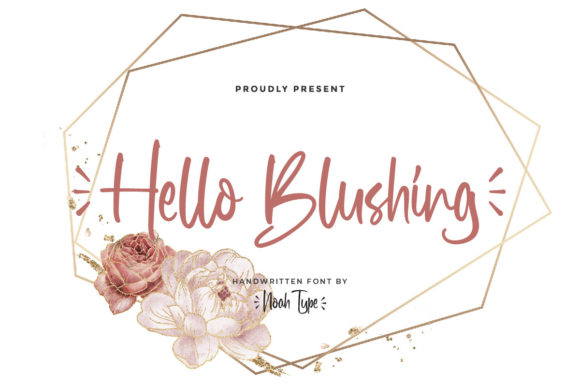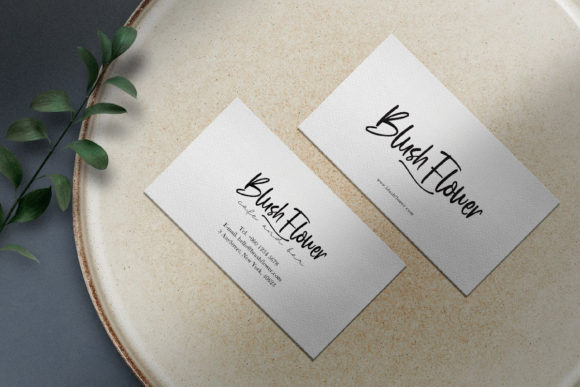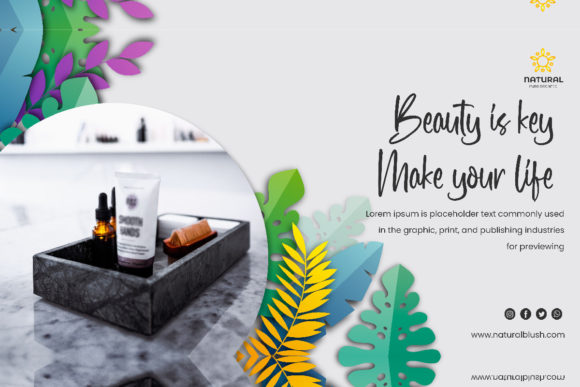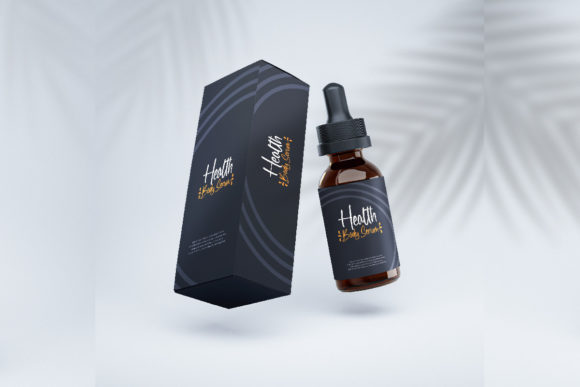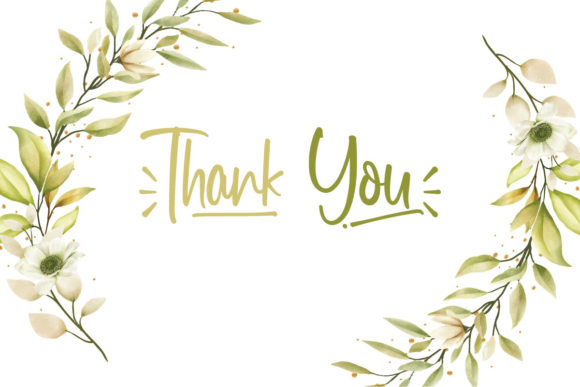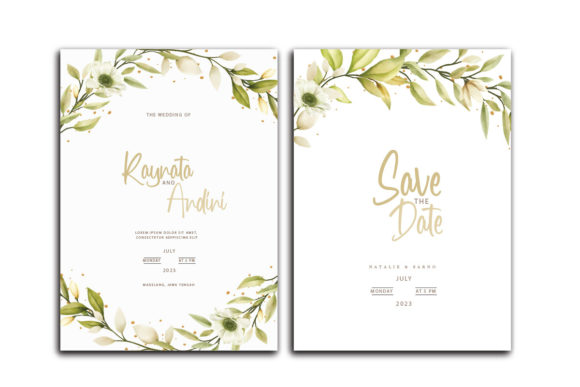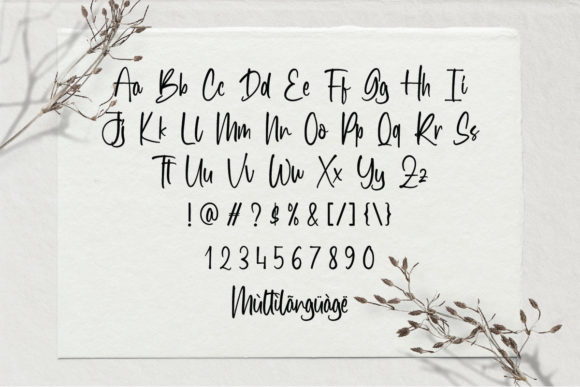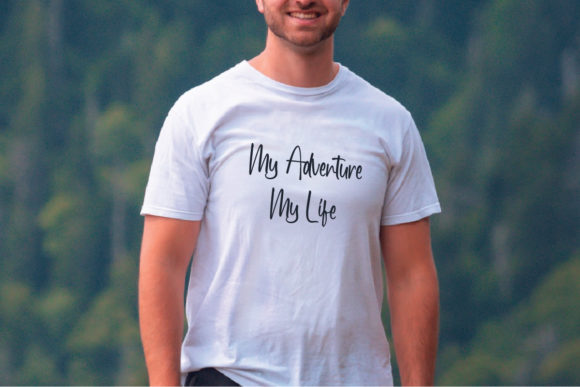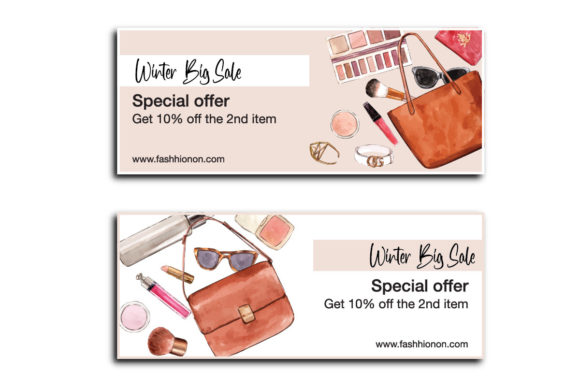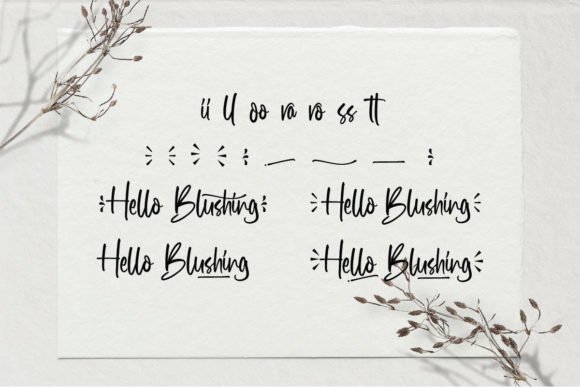
Hello Blushing Font
About Hello Blushing Font
Hello Blushing Font is a stunning handwritten font with stylish characters. This font is crafted carefully in every single scratch, created to look as close to a flawless handwritten script as possible so that it can create the perfect combination on each glyph. This awesome script is for anyone who needs elegance and style in their designs.
Hello Blushing will be awesome for weddings, engagements, brandings, invitations, etc.